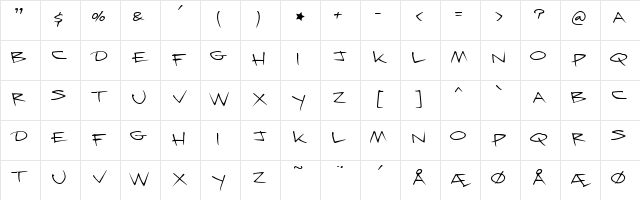
Krazy Nights Regular
Krazy Nights Family
Design Context for Krazy Nights
Krazy Nights is a composed and adaptable typeface that performs quietly and consistently across a wide range of design contexts.